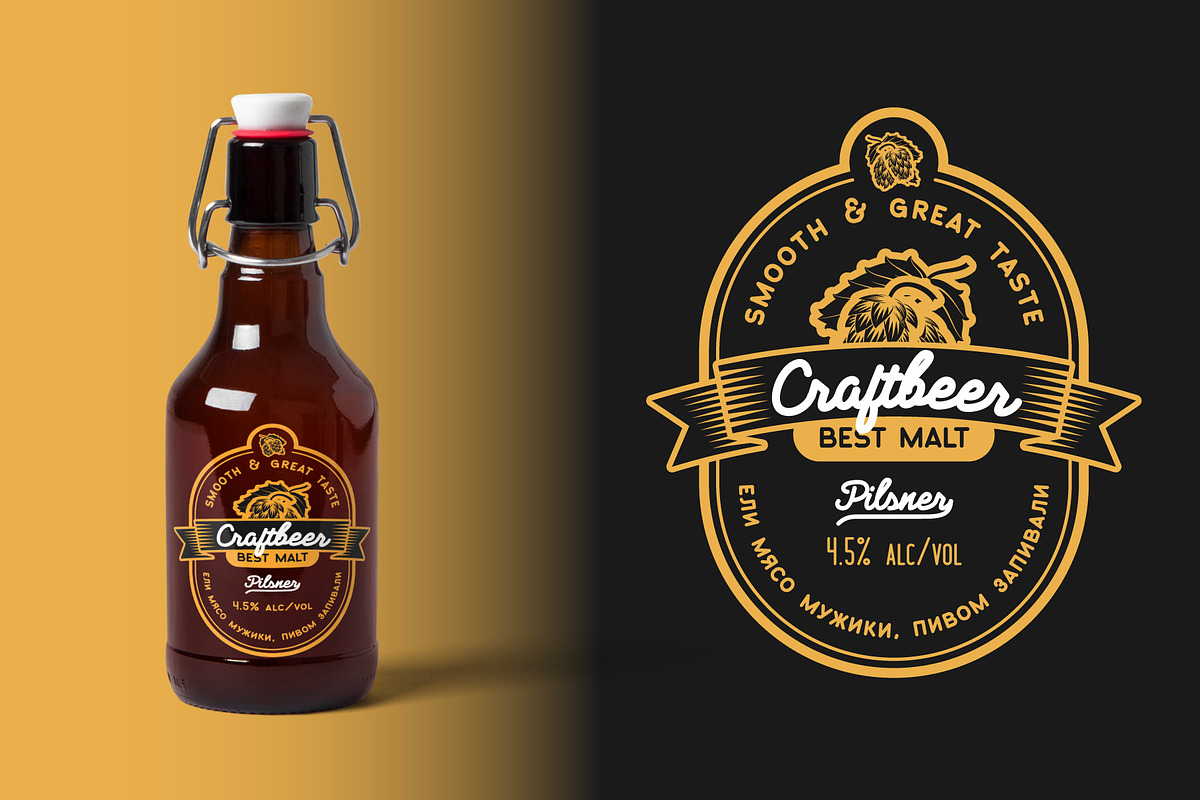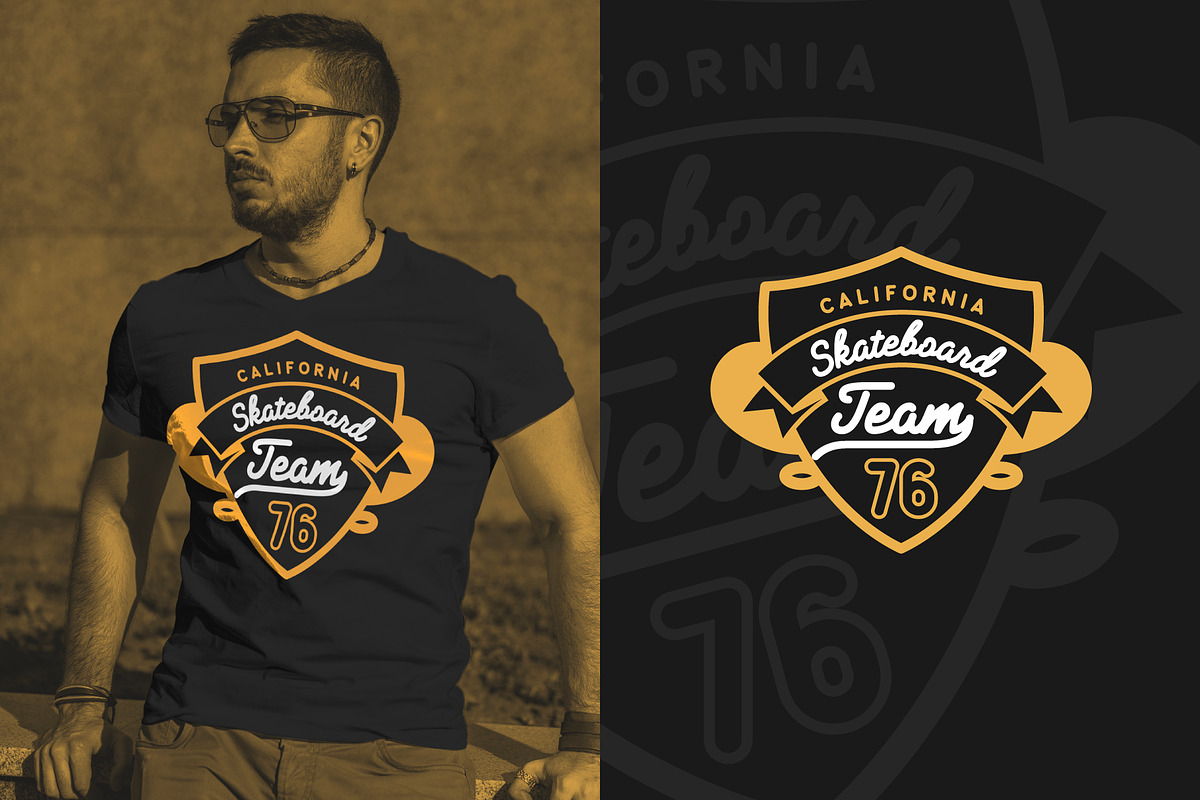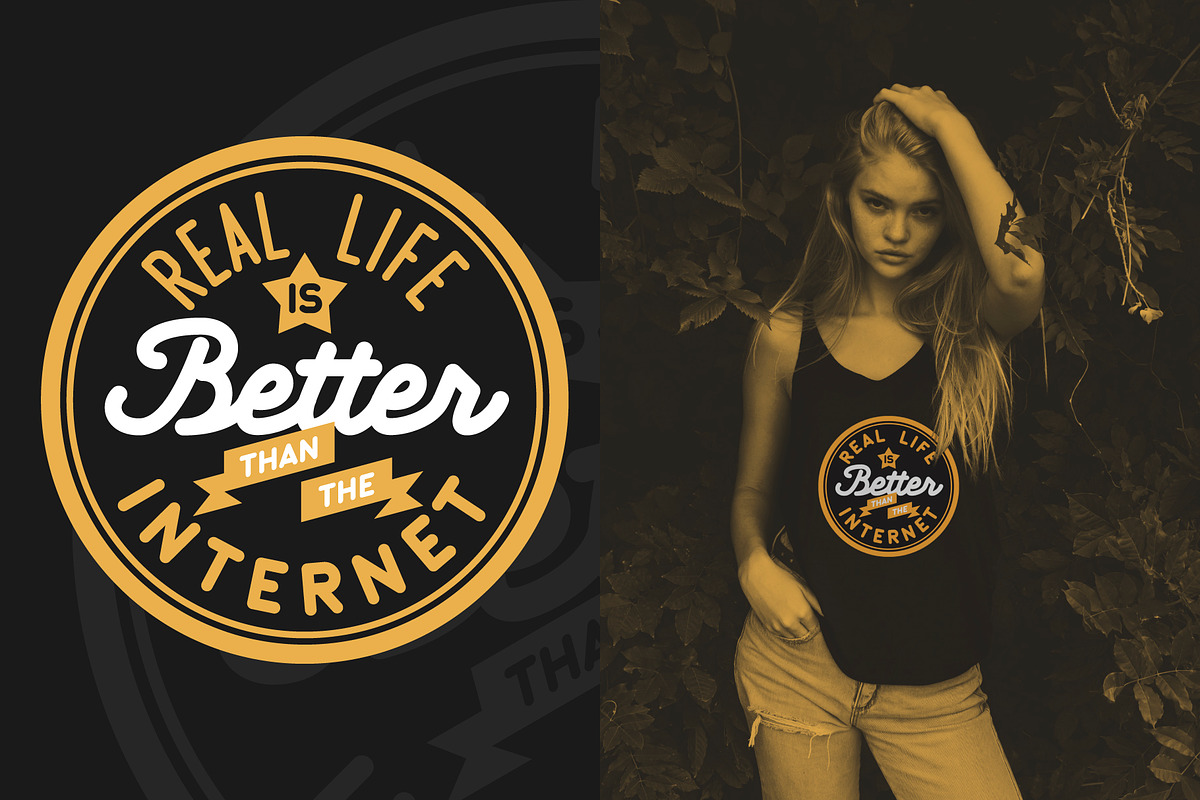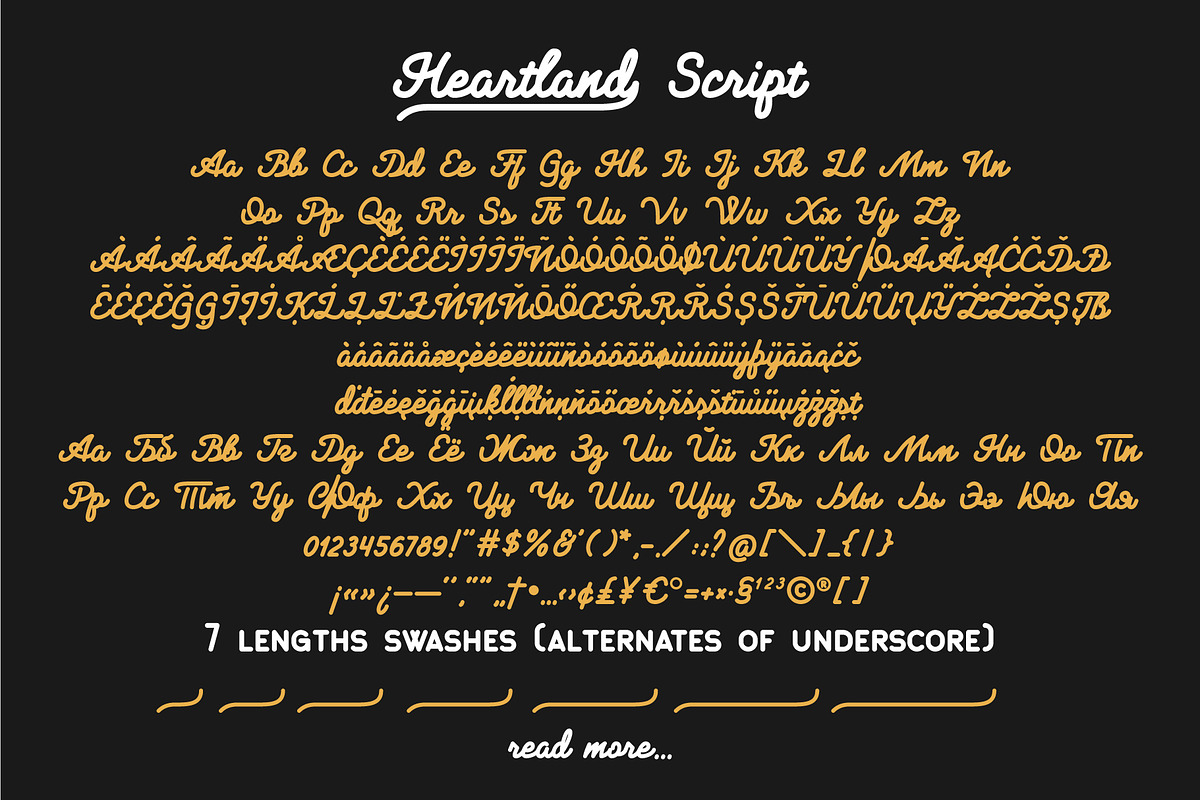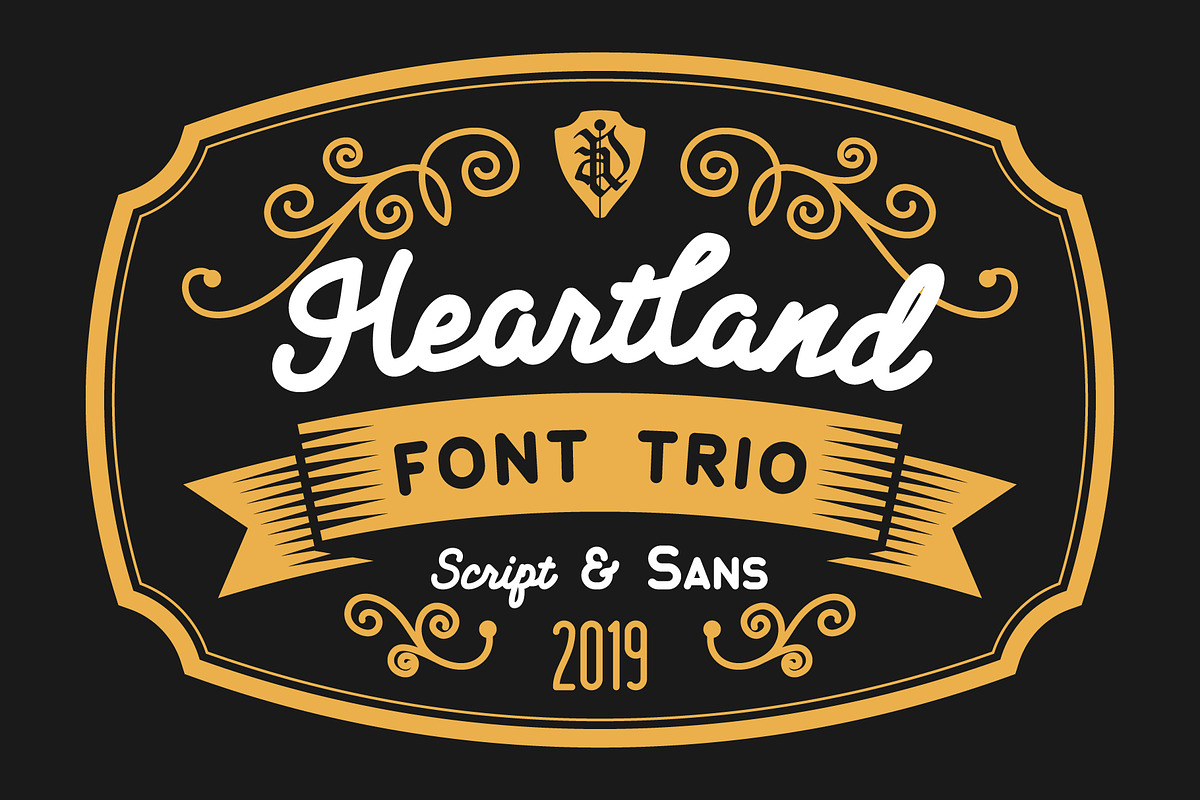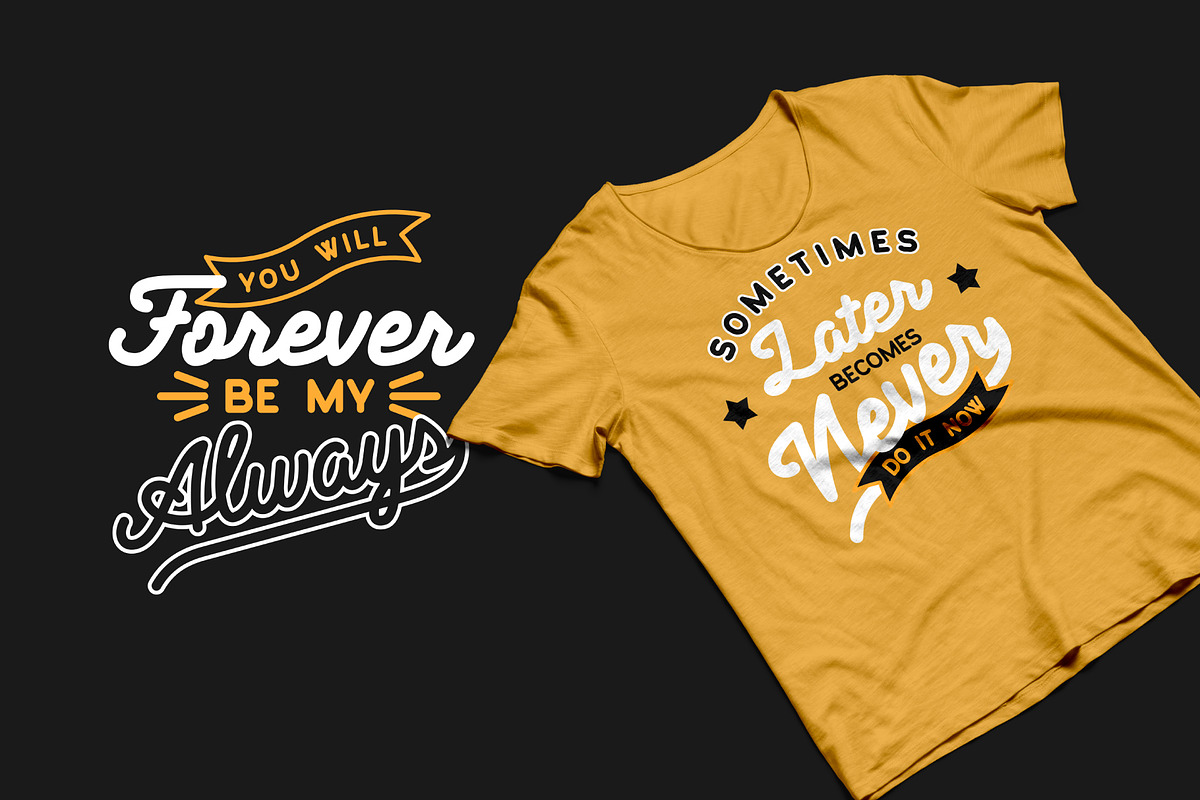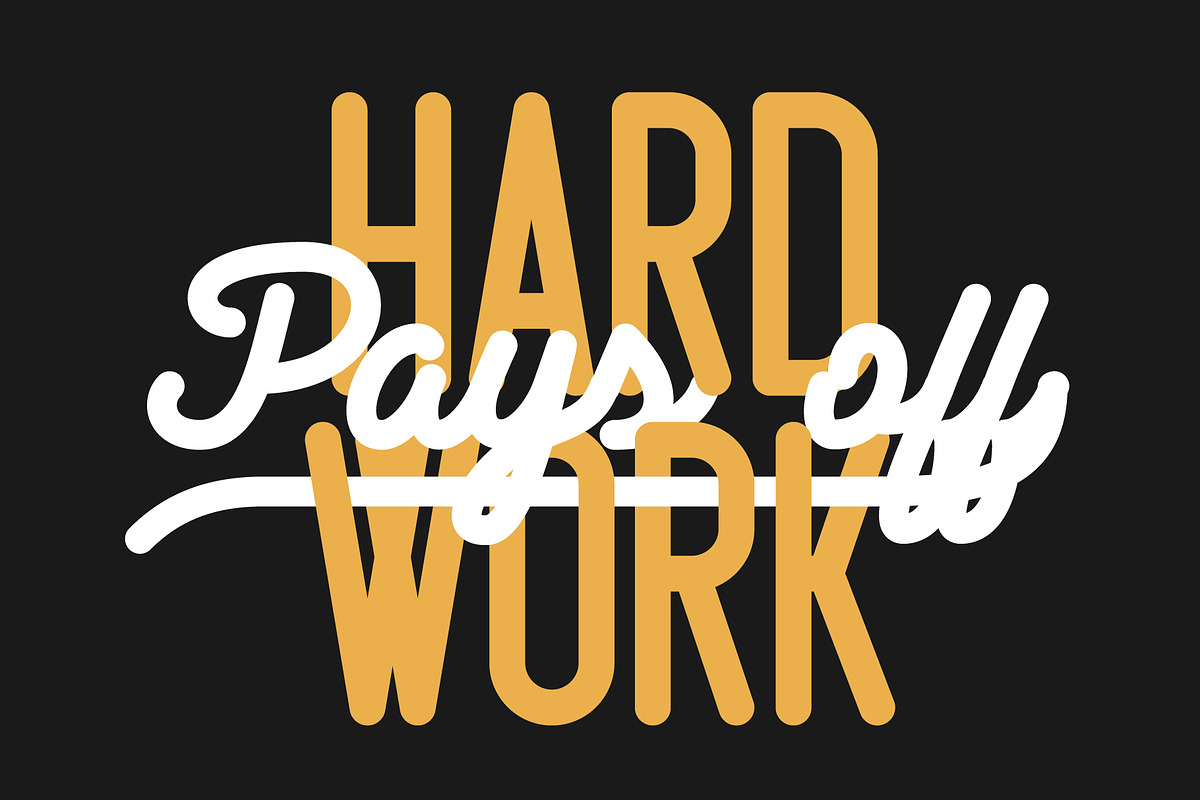
Heartland font trio
Heartland font trio is a pack of the bold connected script and pair rounded sans - regular and condensed. Font is great to use for logotype, menu and product labels, prints, posters, branding, social media.
Heartland Sans Condensed
- Heartland Sans Regular
- Heartland Sans Condensed
- Heartland Script Regular
Why Heartland font trio is worth a look
Heartland font trio by NREY fits naturally into Branding, posters, packaging, typography.